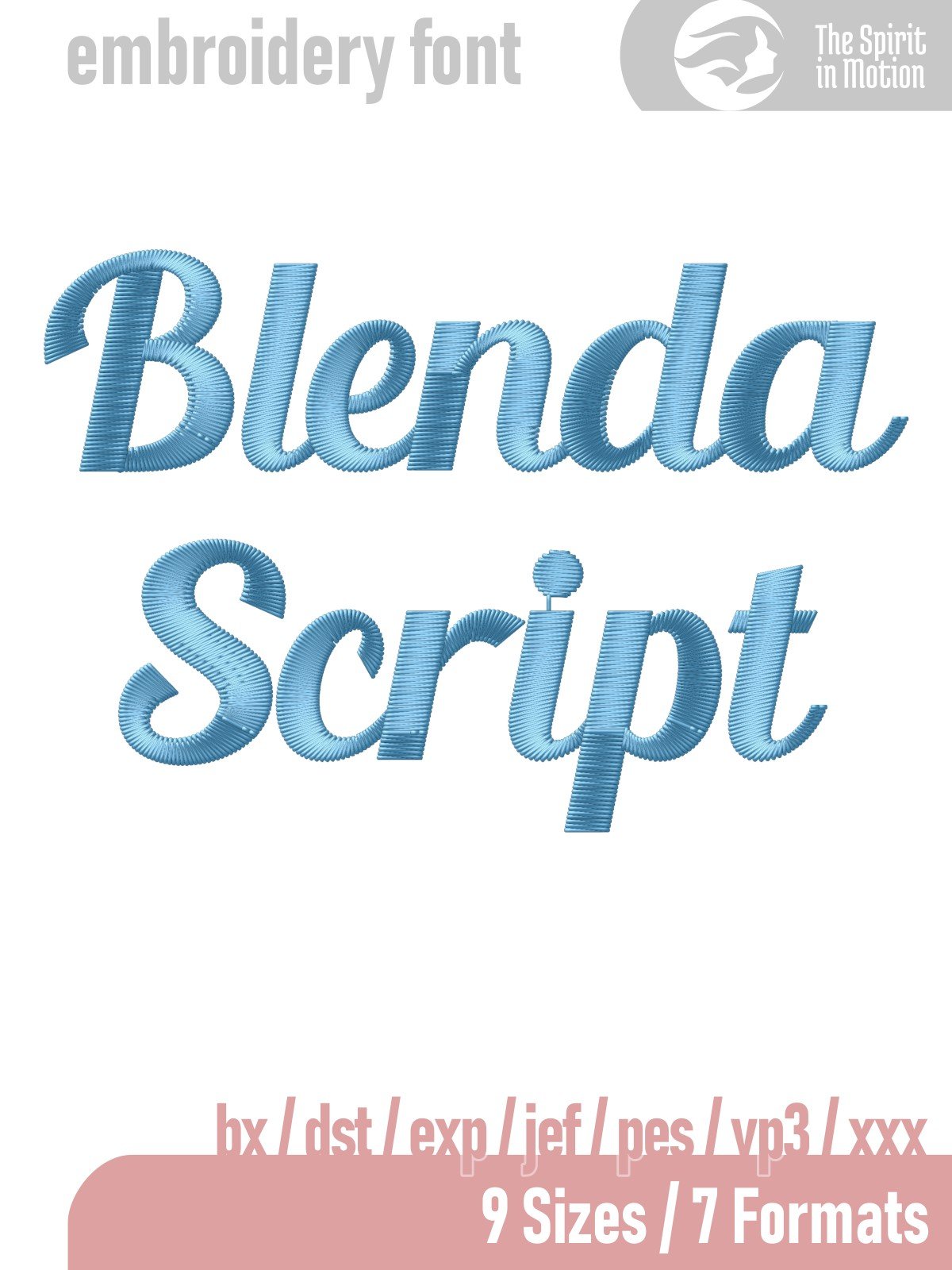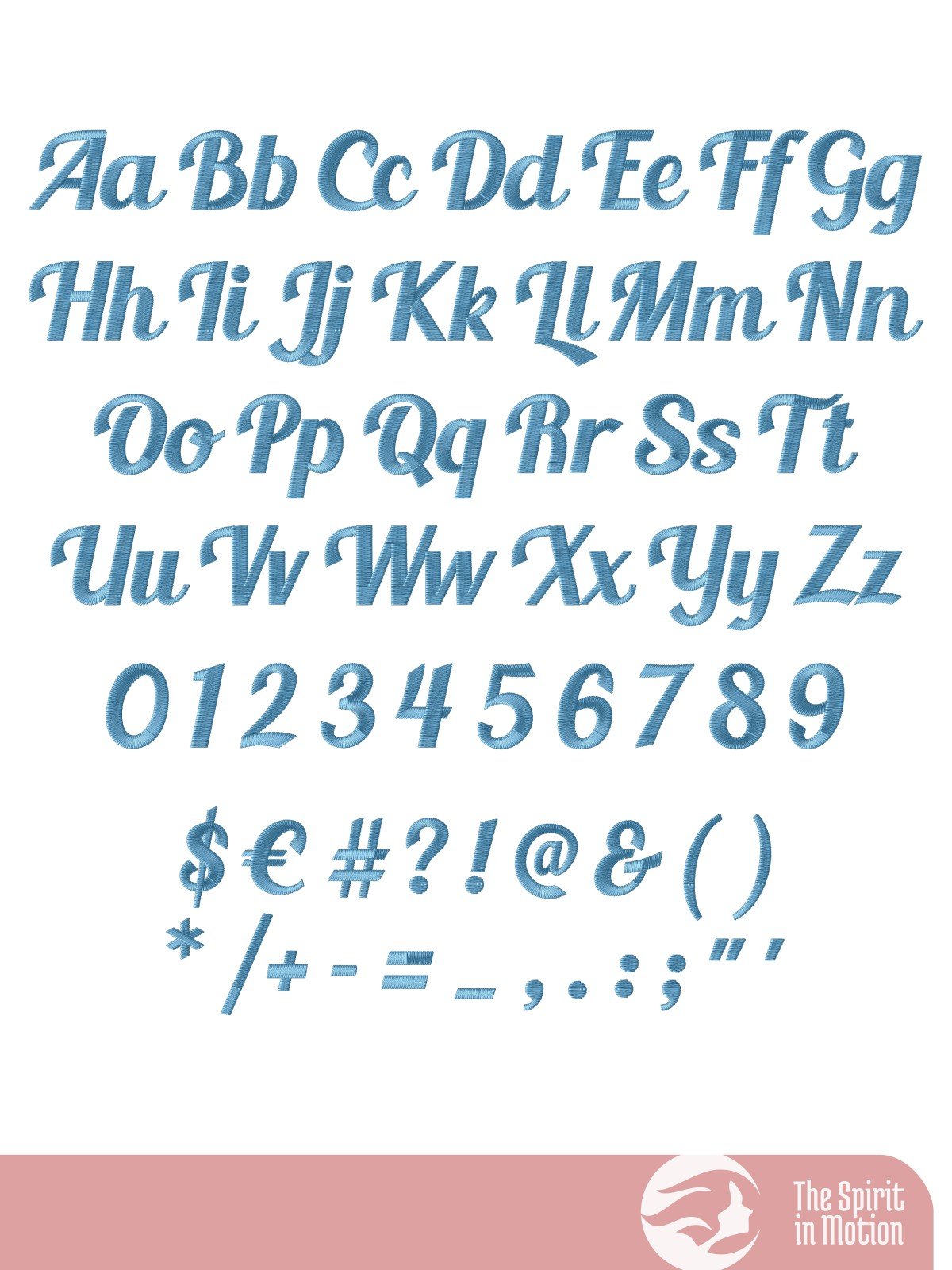
Blenda Script Embroidery Font
Add a stylish and retro flair to your embroidery projects with this manually digitized script font. Perfect for branding and personalizing clothing, accessories, or home décor, its flowing script design adds elegance and charm to monograms, quotes, and decorative details. The listed sizes refer to the approximate height of uppercase letters, though adjustments may be needed depending on your specific project and machine settings.